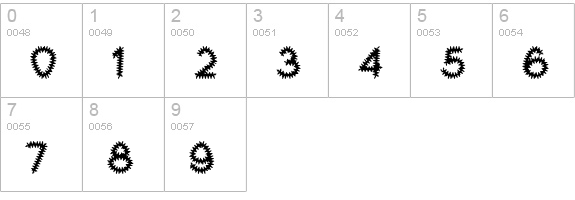
YahoschWormy Font Details
Introducing YahoschWormy font, a unique and quirky typeface that is sure to make your designs stand out! This whimsical font features playful shapes and charming details that add a touch of fun to any project. With its bold yet friendly appearance, YahoschWormy is perfect for creating eye-catching headlines, posters, logos, and more. What's even better is that YahoschWormy font is completely free for personal and commercial use. You can download this delightful font at FontsMarket.com and start incorporating its charm into your designs today. Don't miss out on the opportunity to add a touch of whimsy to your projects with YahoschWormy font!